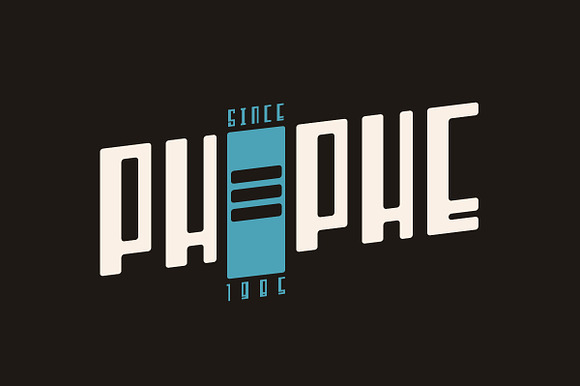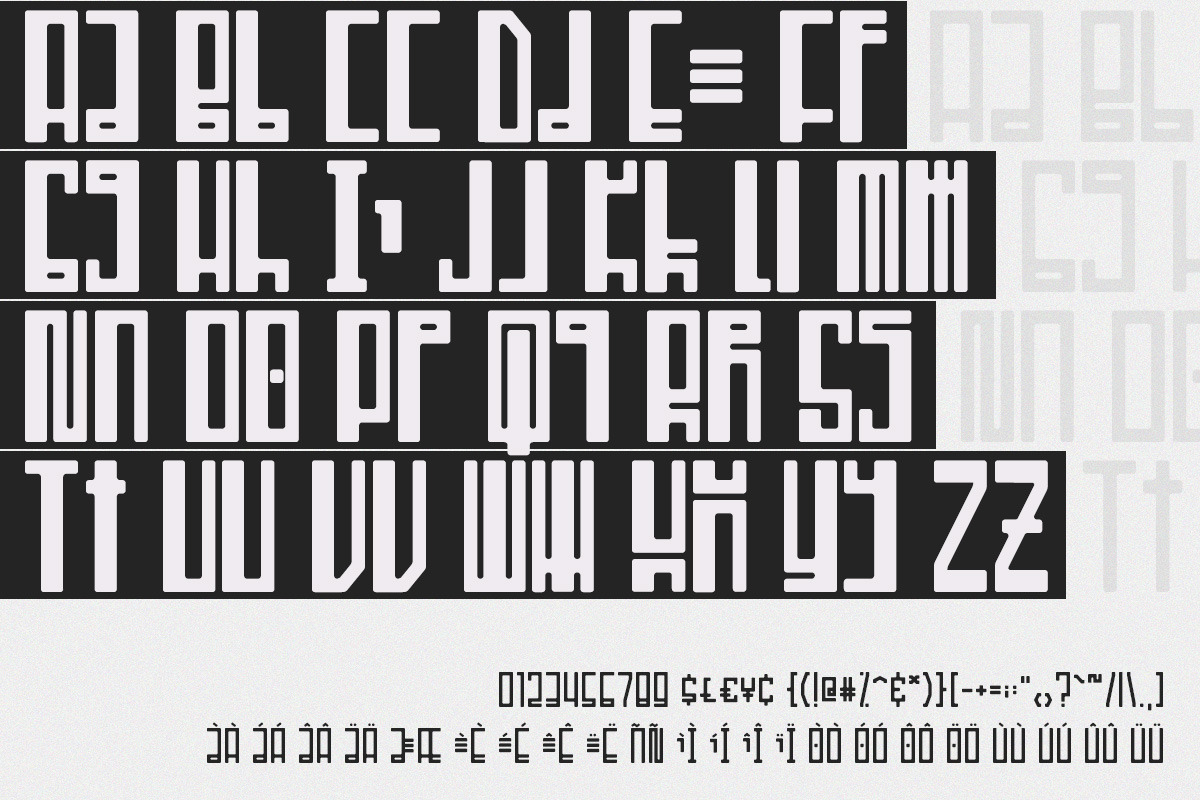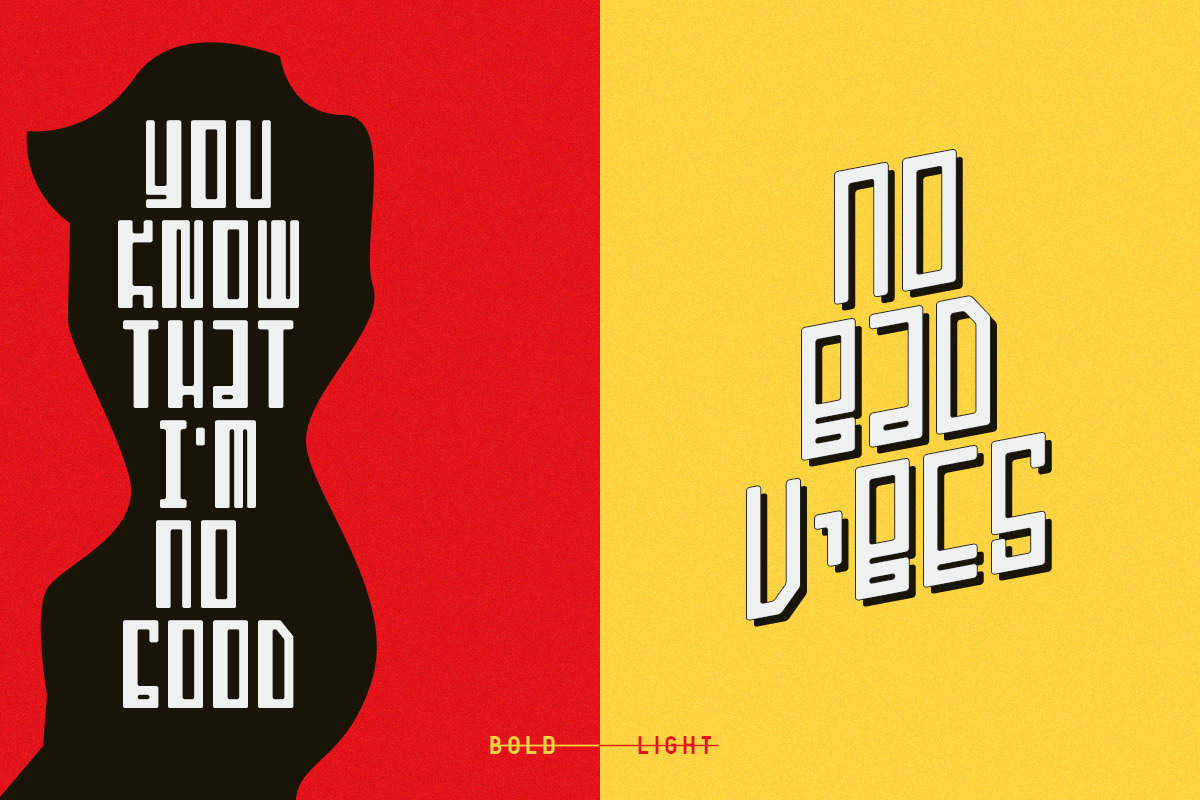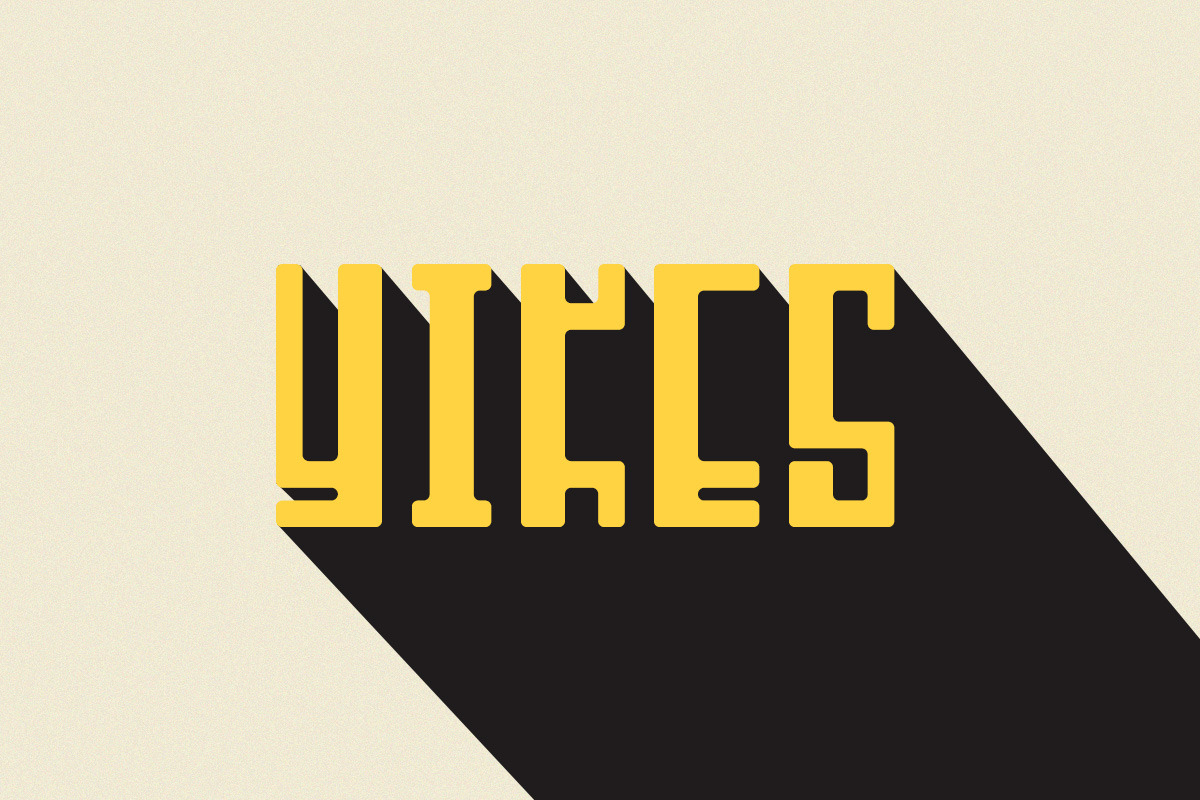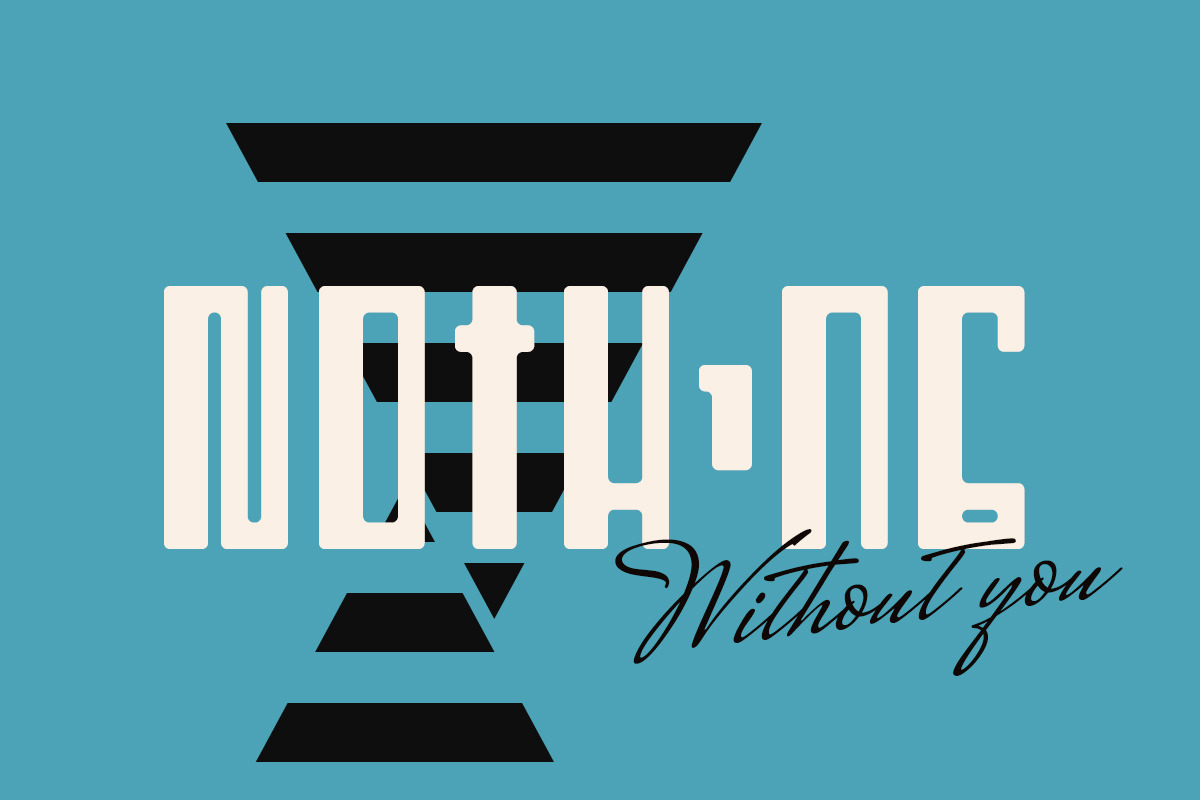
Phephe Vintage Font
Phephe is a fun and vintage font, to simulate your lovely design. Perfect for many different projects: quotes, blog header, poster, wedding, branding, logo, fashion, apparel, letter, invitation, stationery, etc.
Weight: Light and Bold
- Phephe Light
- Phephe Bold
Phephe Vintage Font by Factory738 Studio fits naturally into Branding, posters, packaging, typography.